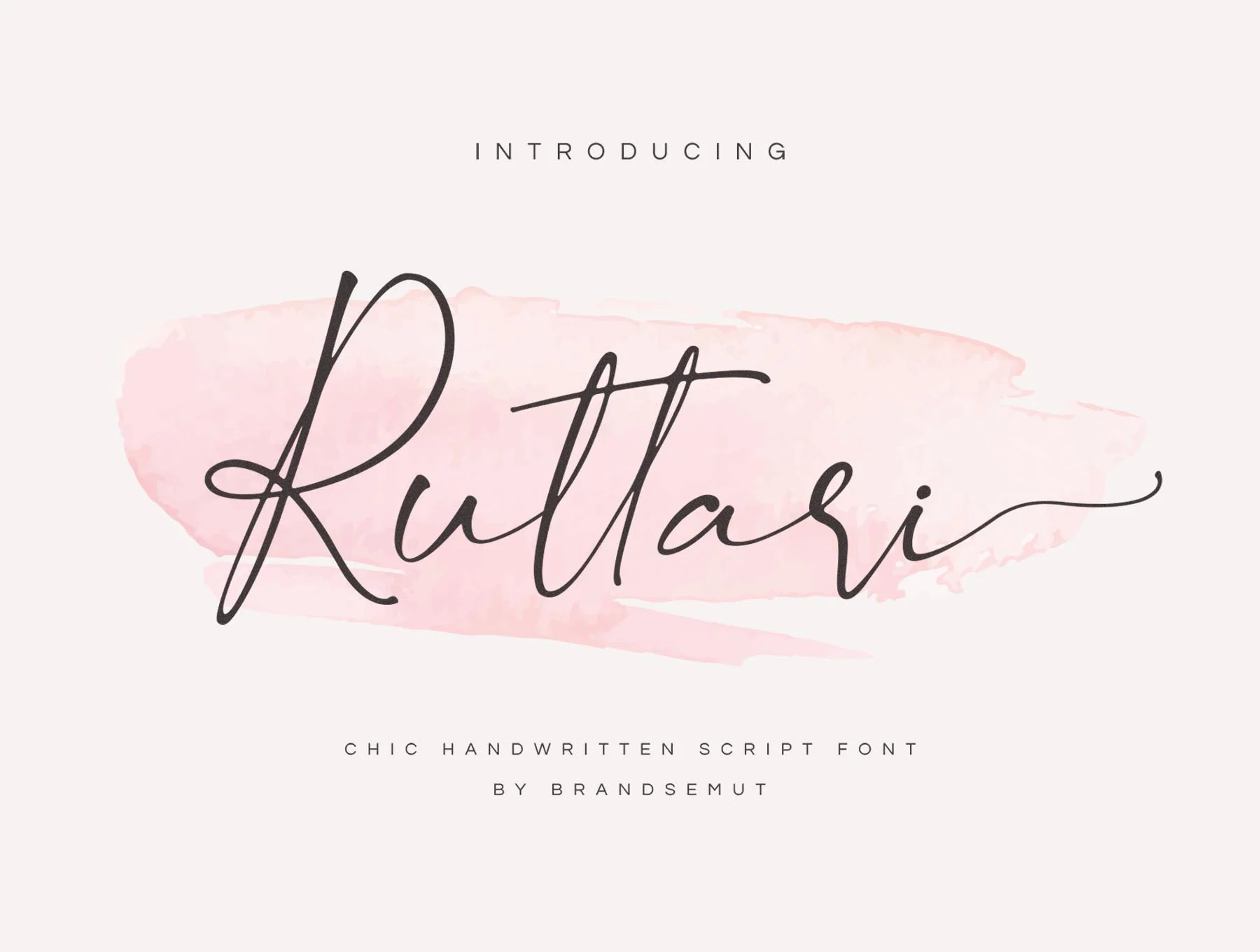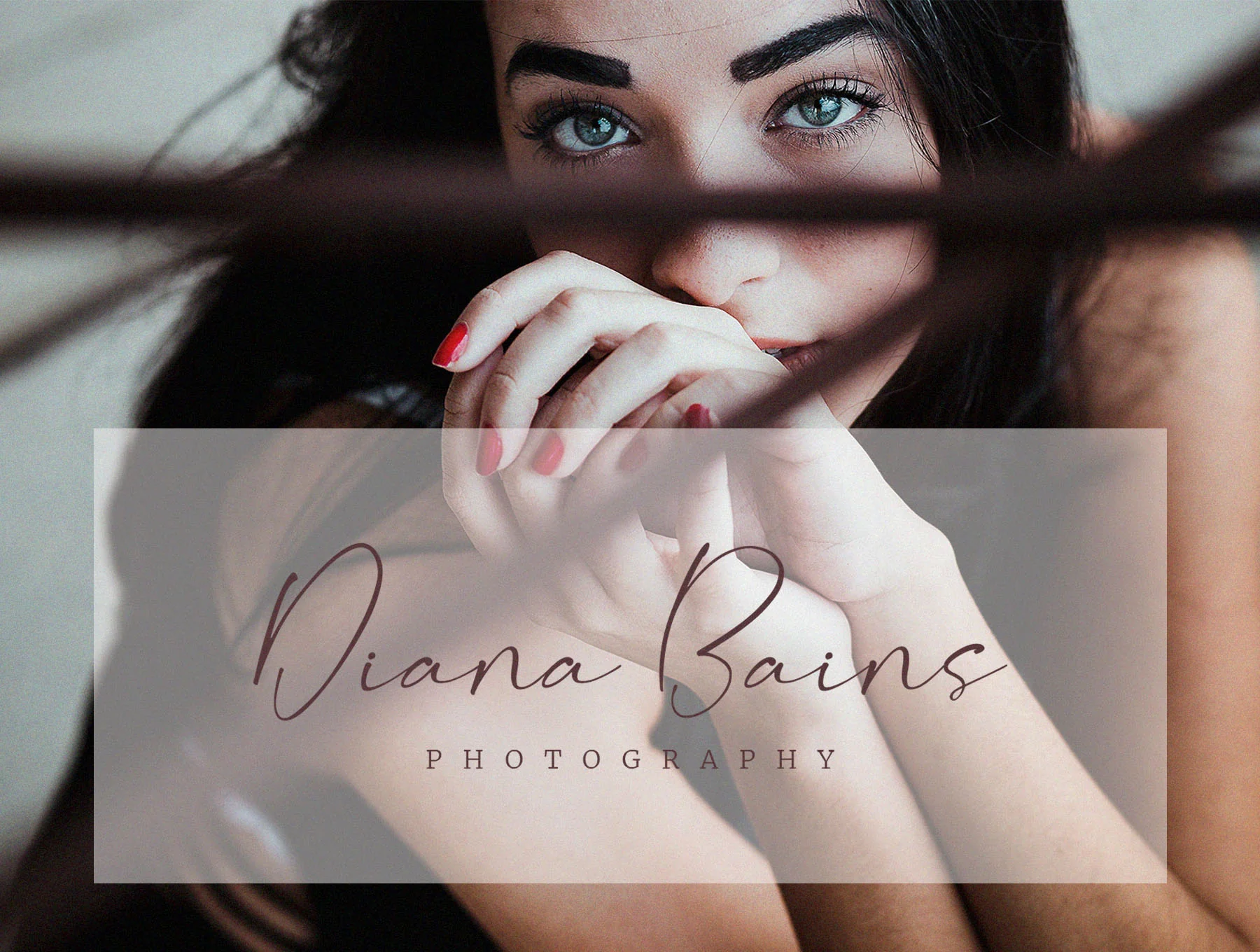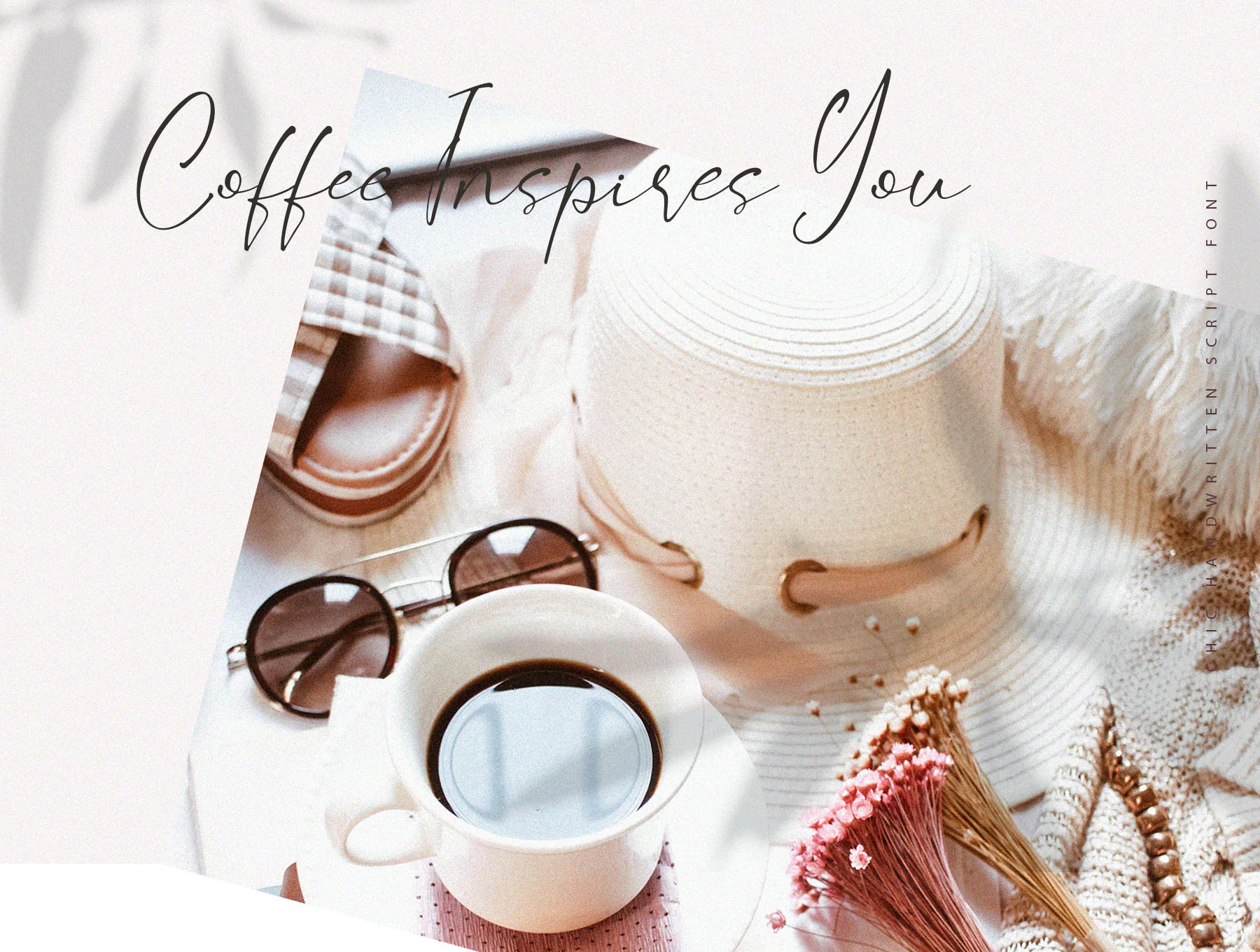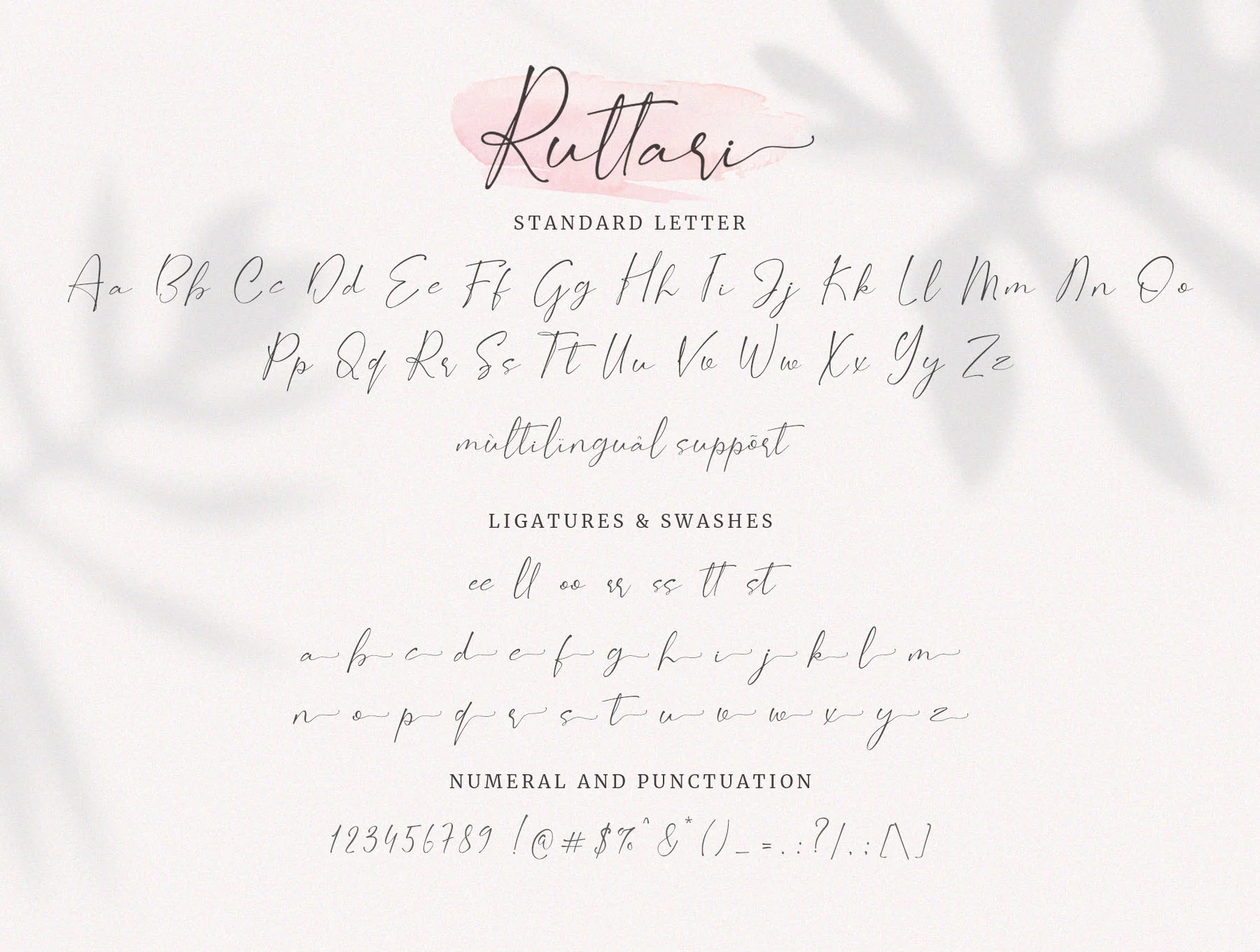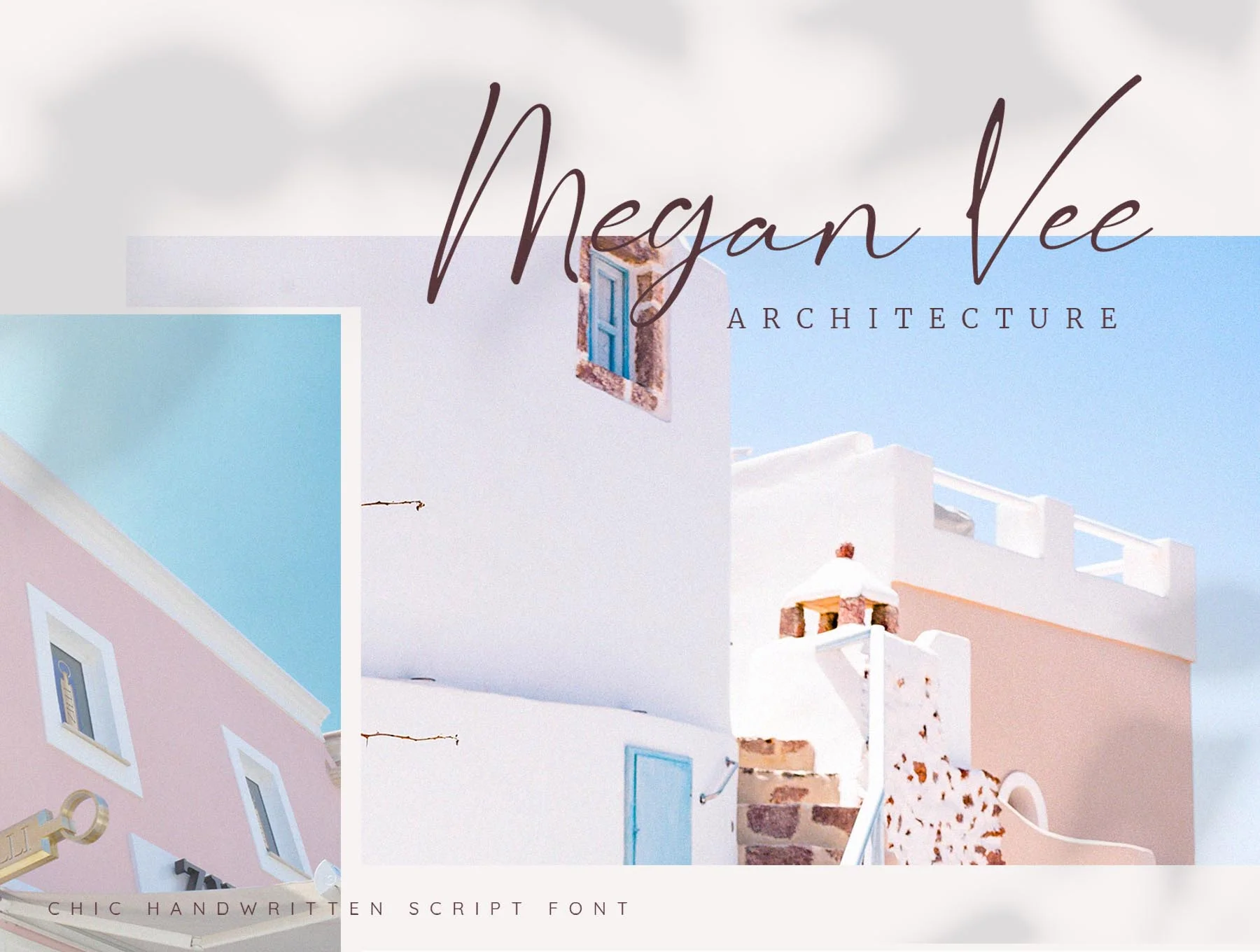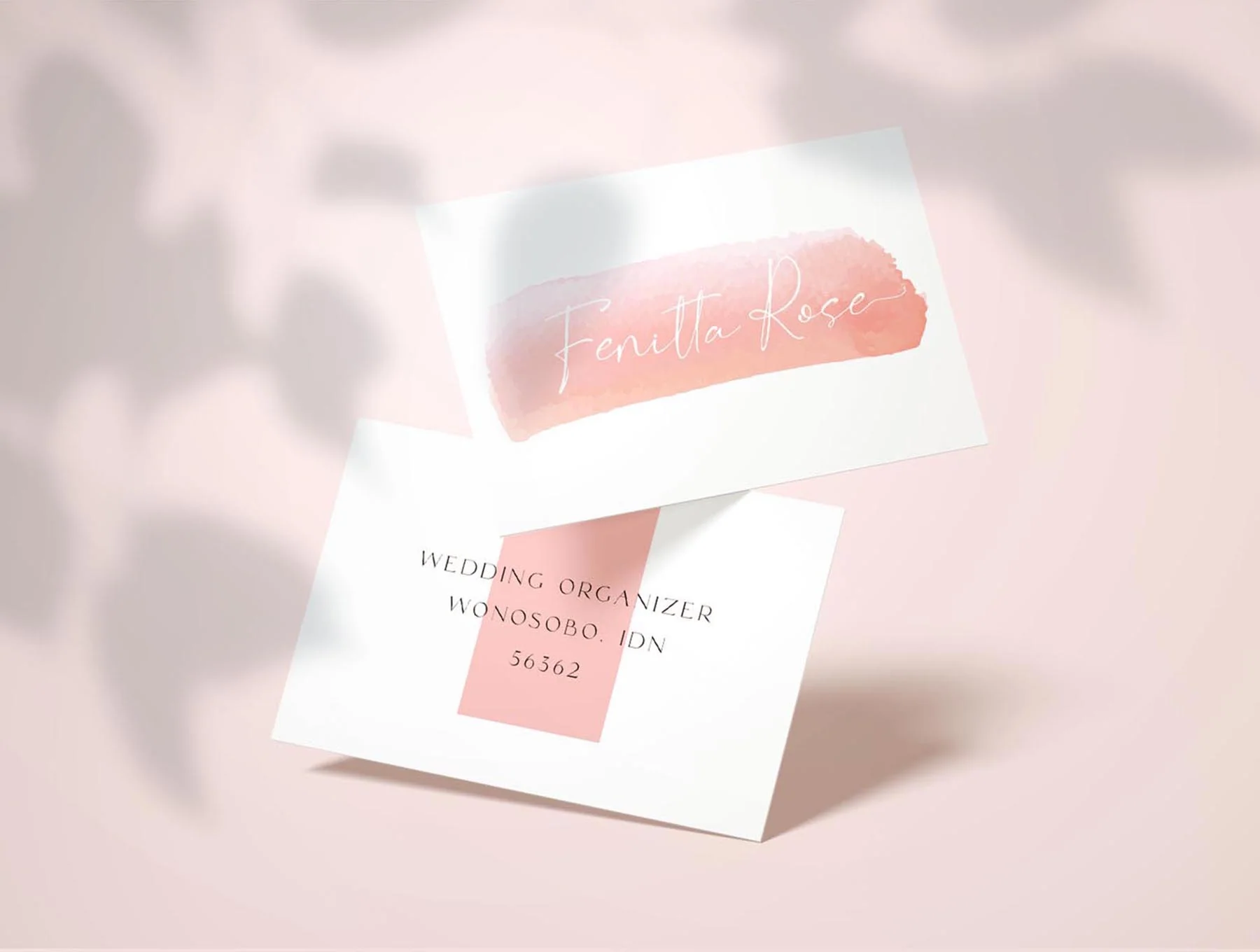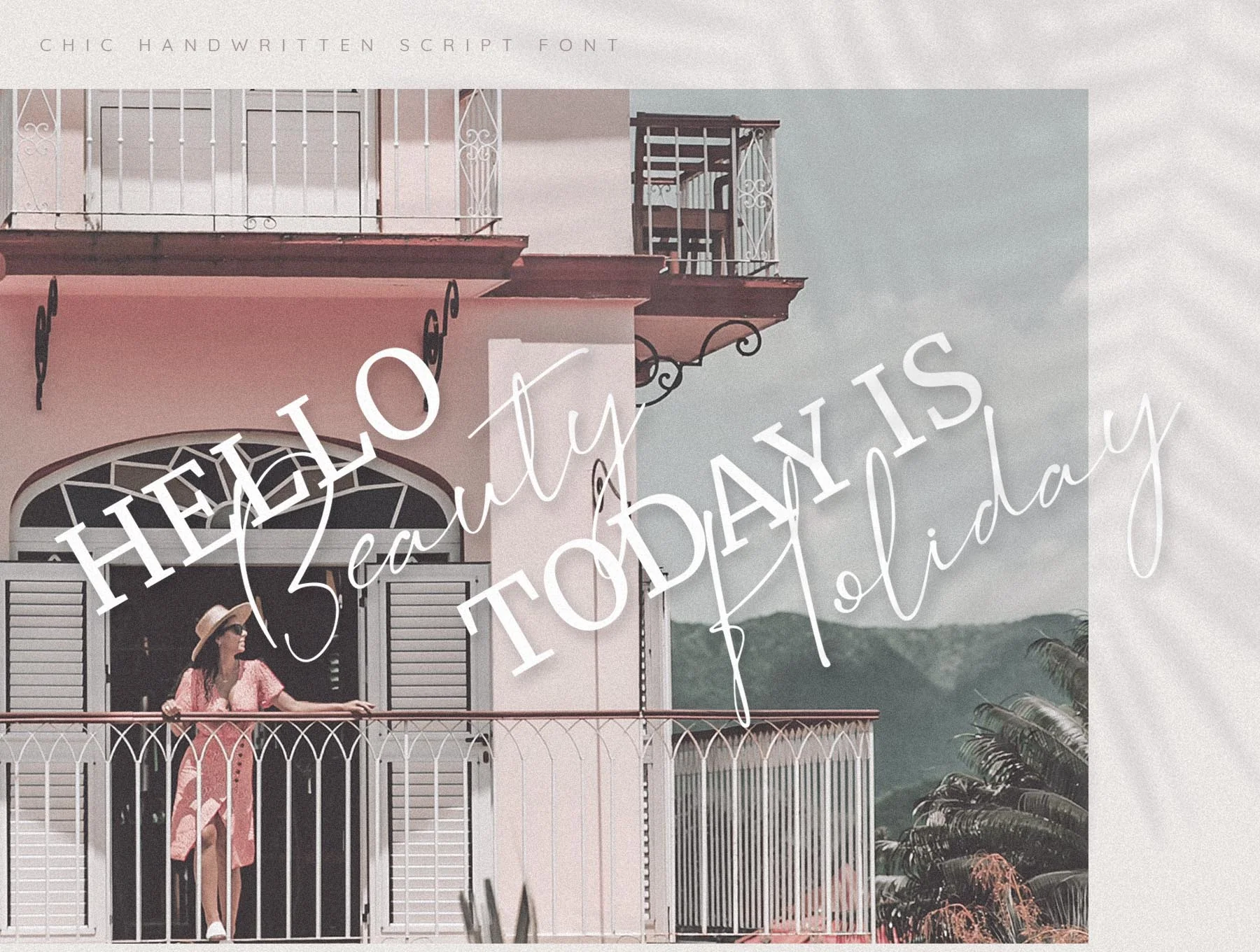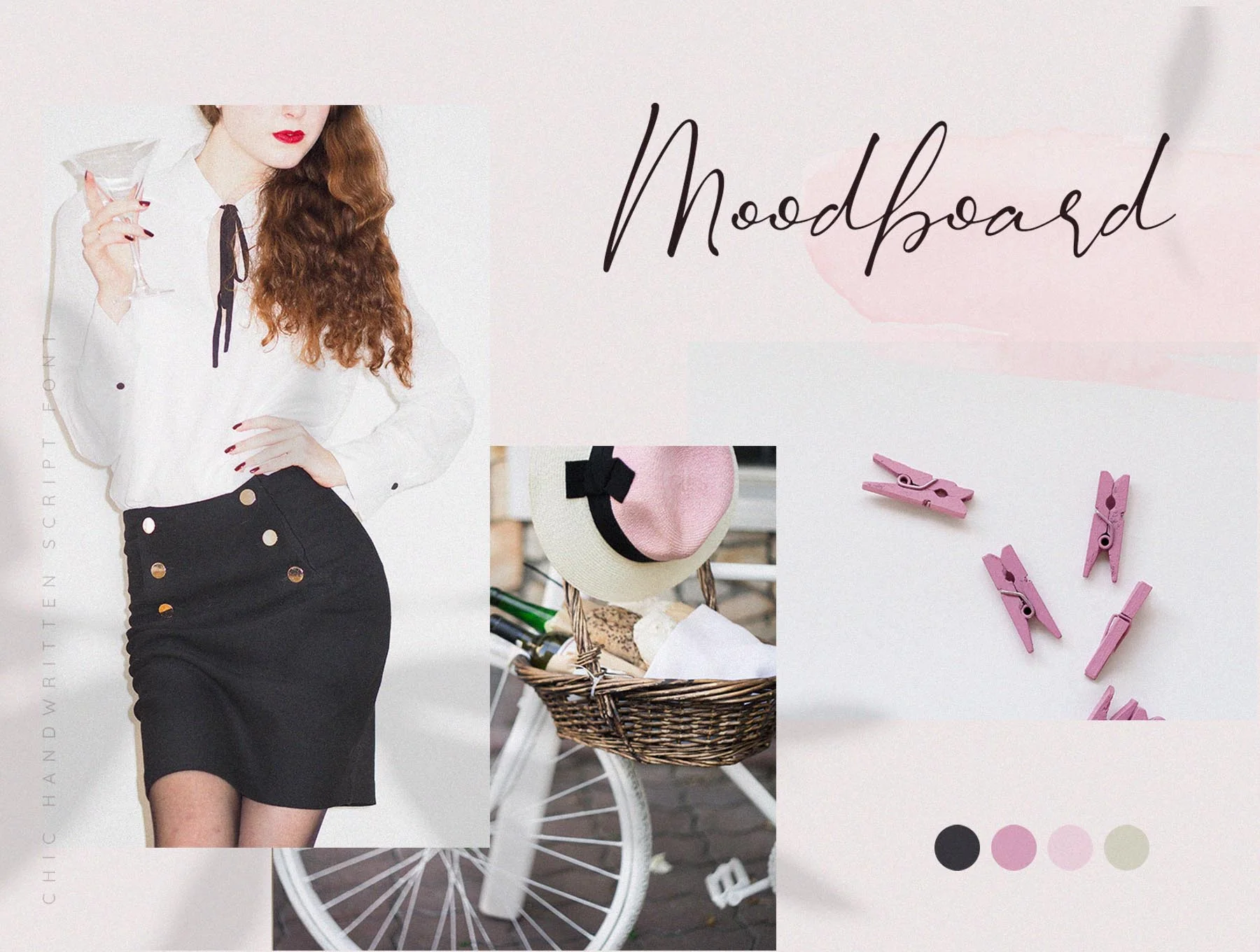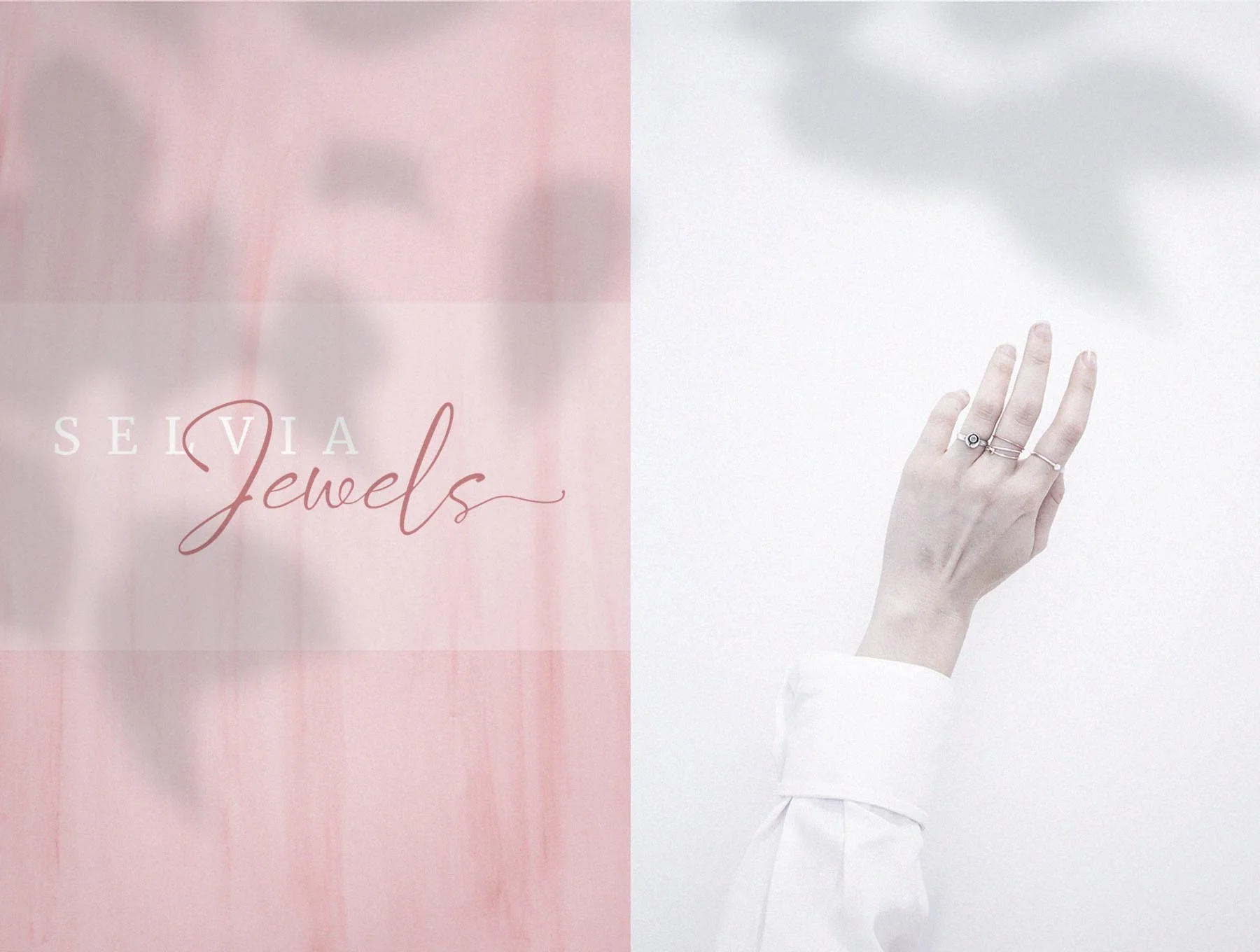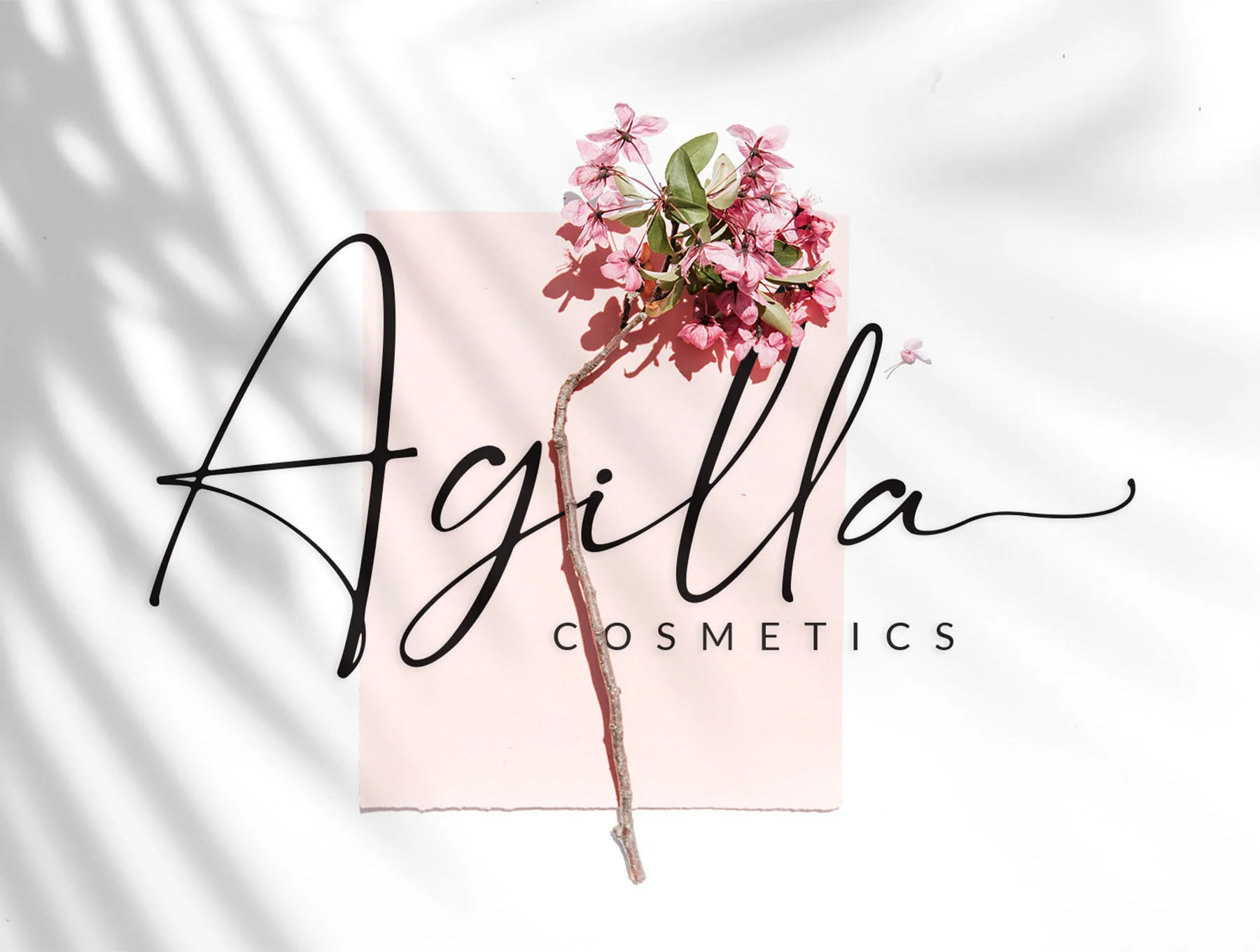
Ruttari // Chic Handwritten Font
Ruttari Chic Hand-Lettered Script Font
Meet Ruttari Chic, a fresh handwritten script font designed to add refined, stylish, and contemporary flair to your projects. It includes OpenType features such as ligatures, alternates, ending swashes, numerals, punctuation, and multilingual support. Files included: OTF, TTF, and WOFF. Contact me with any questions and enjoy creating with Ruttari!